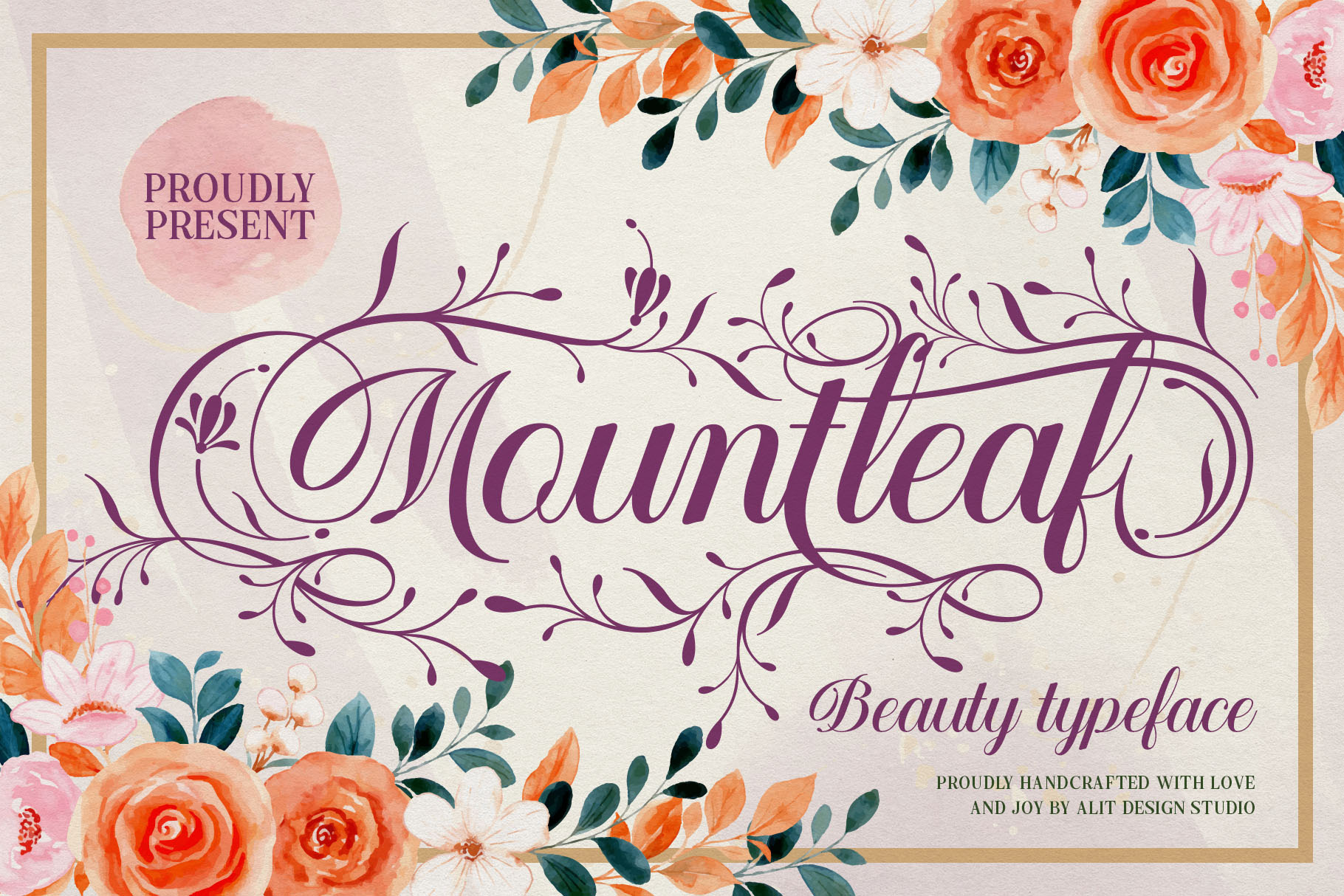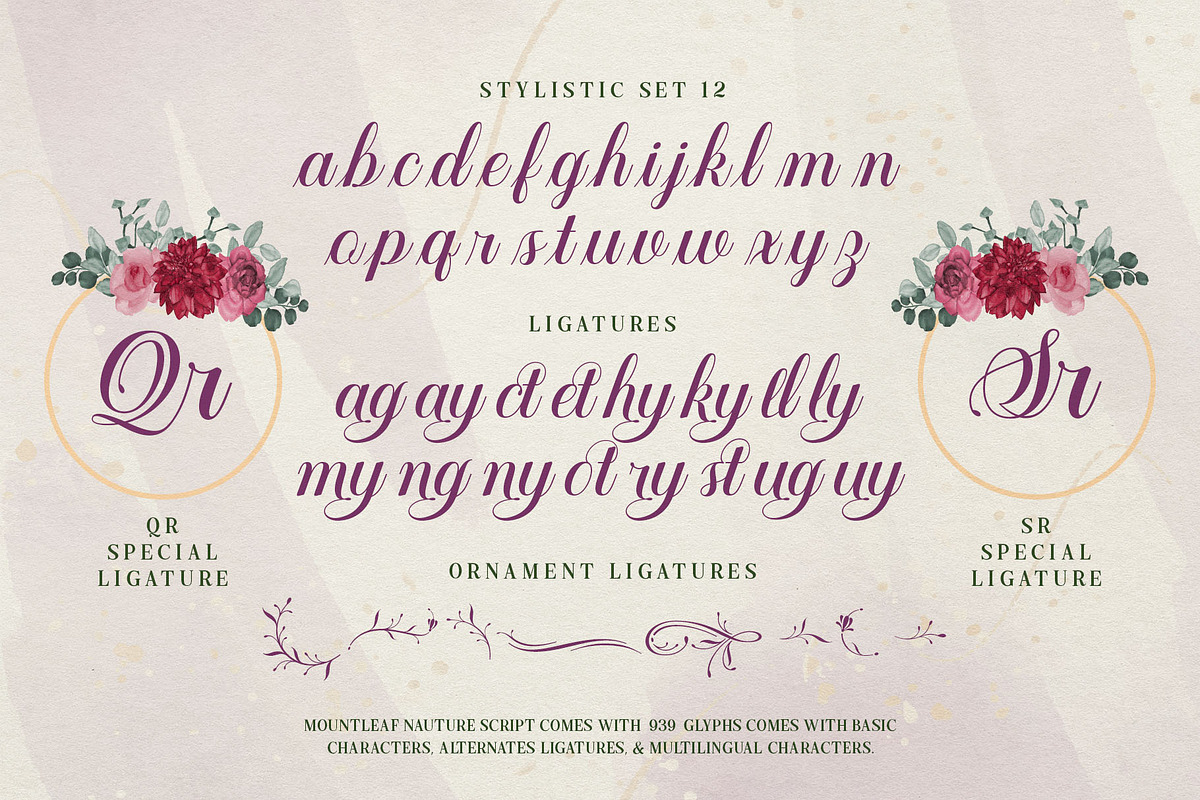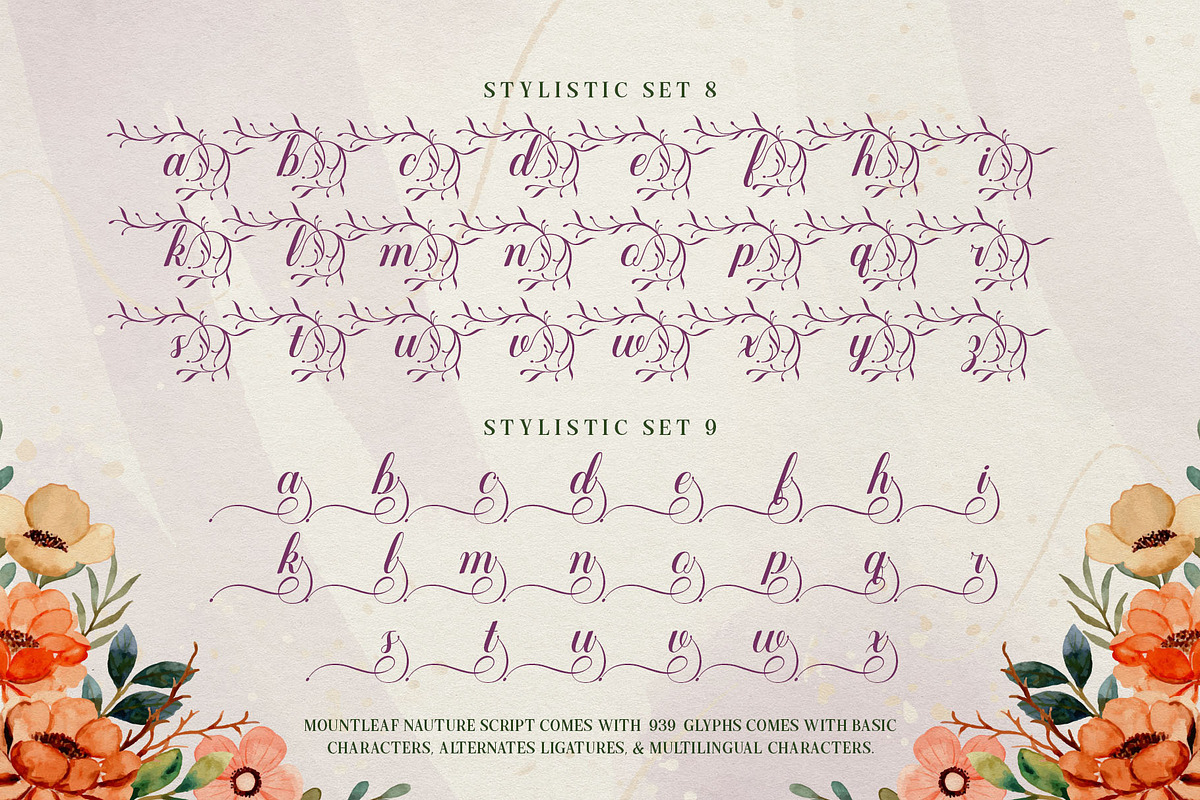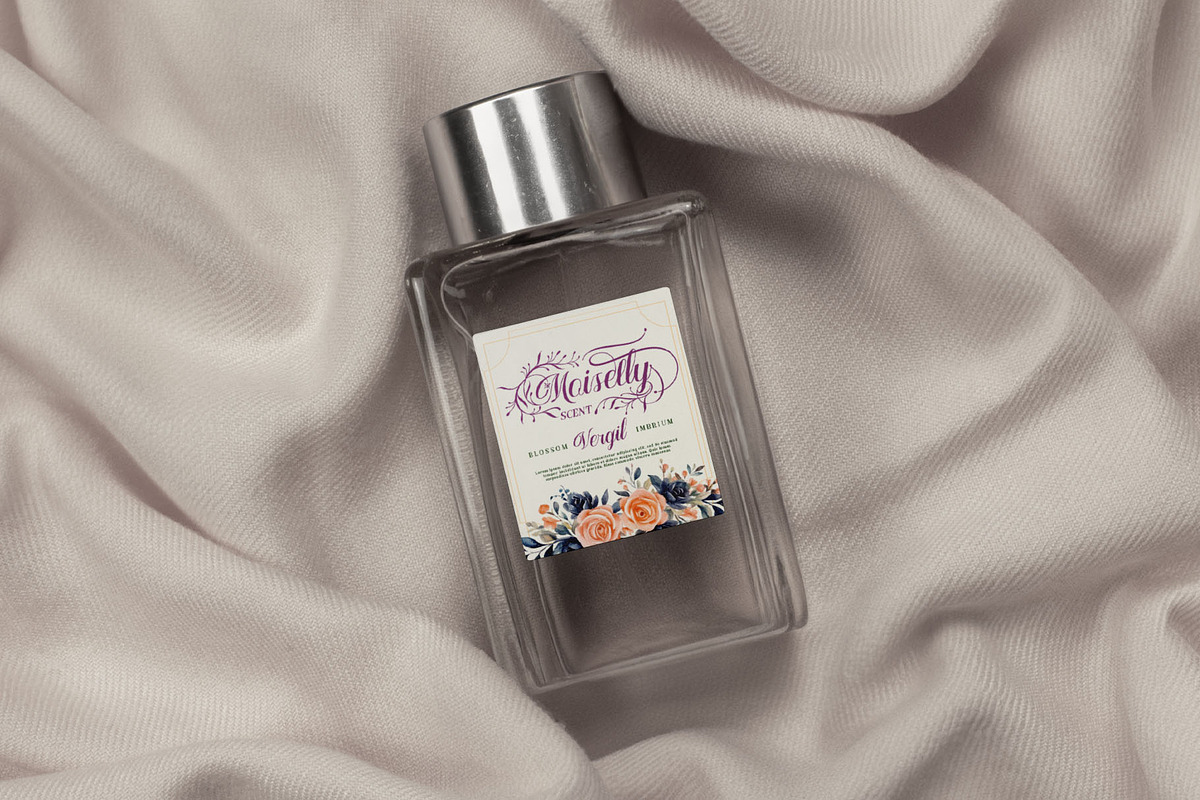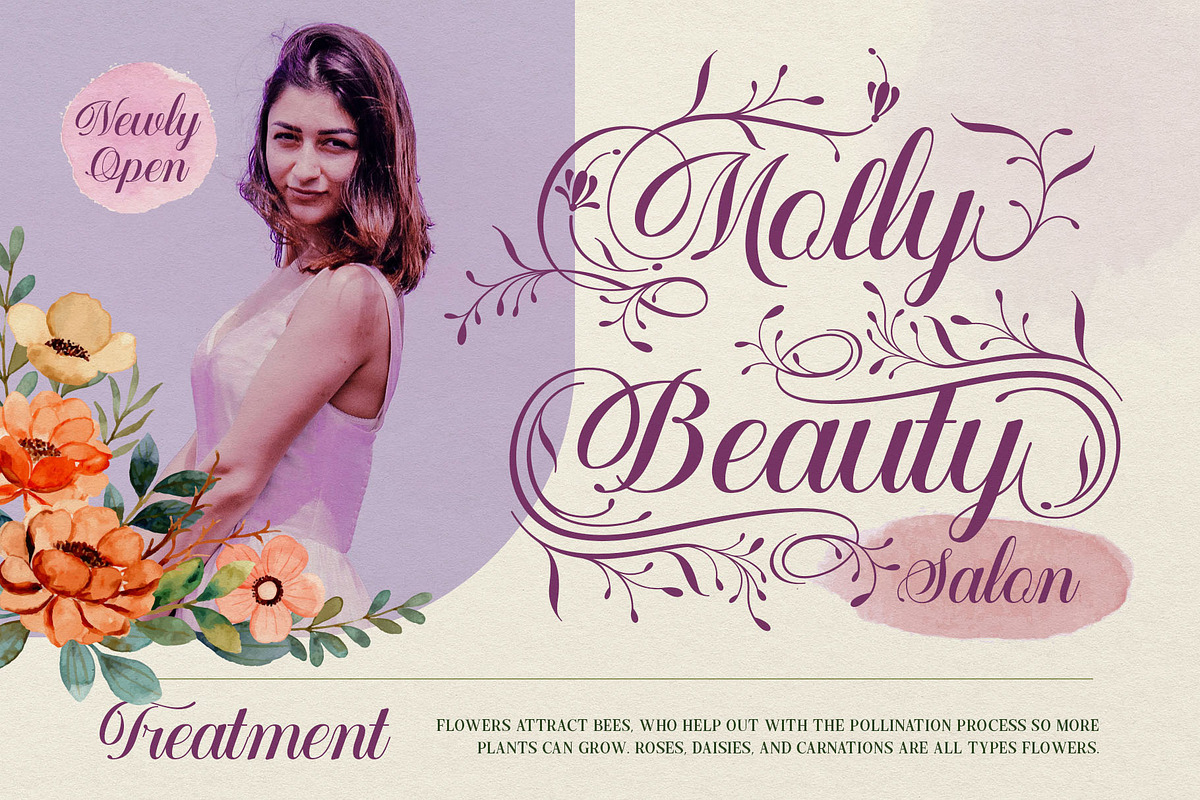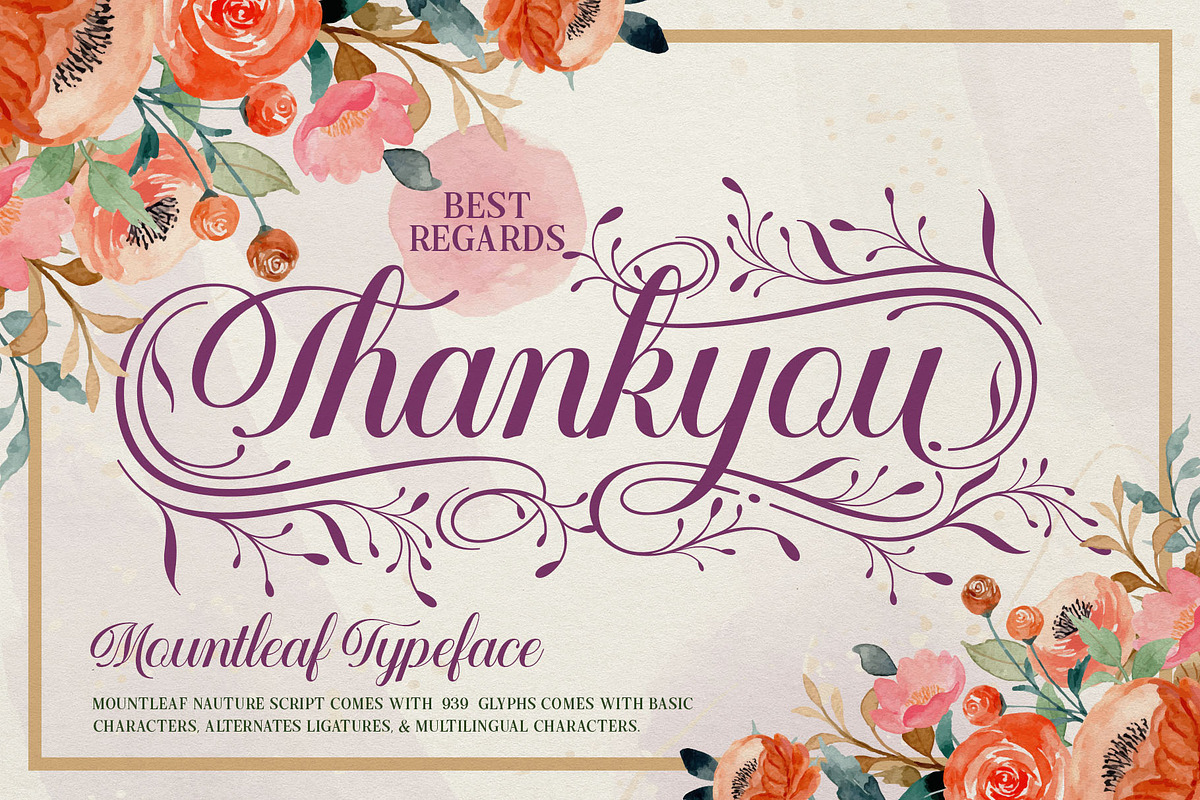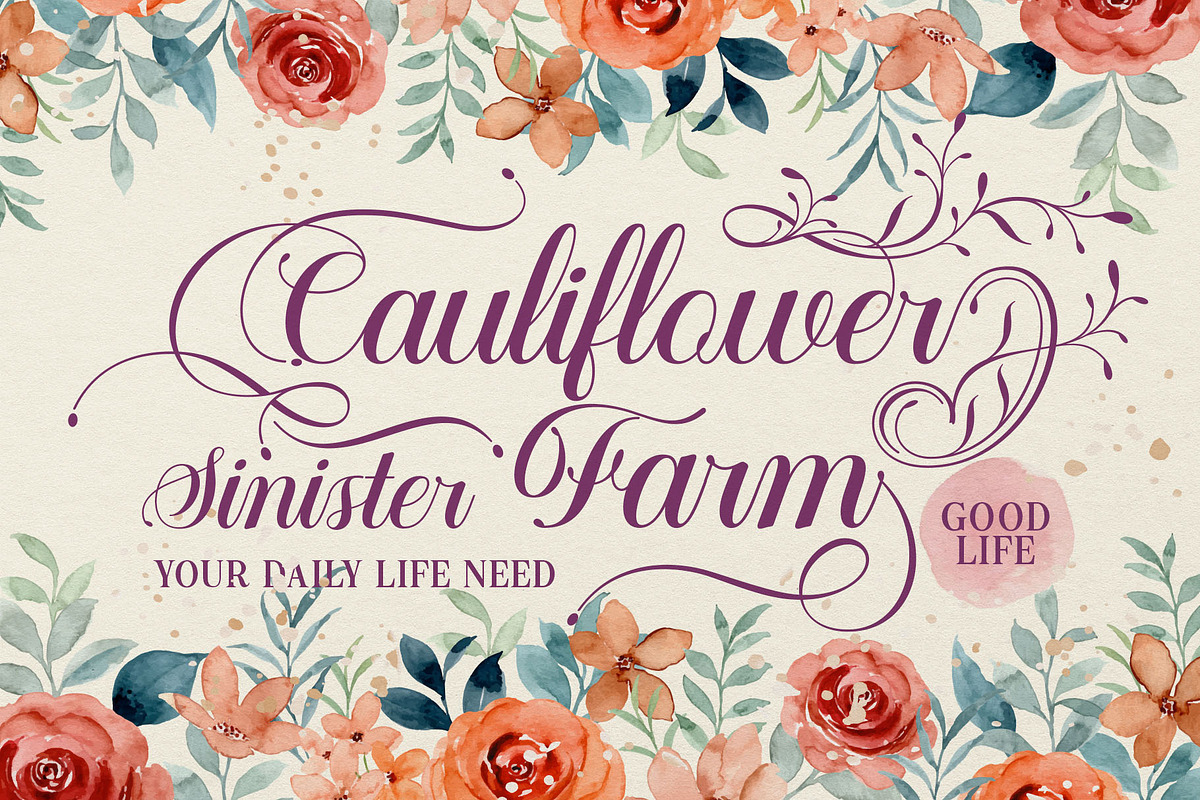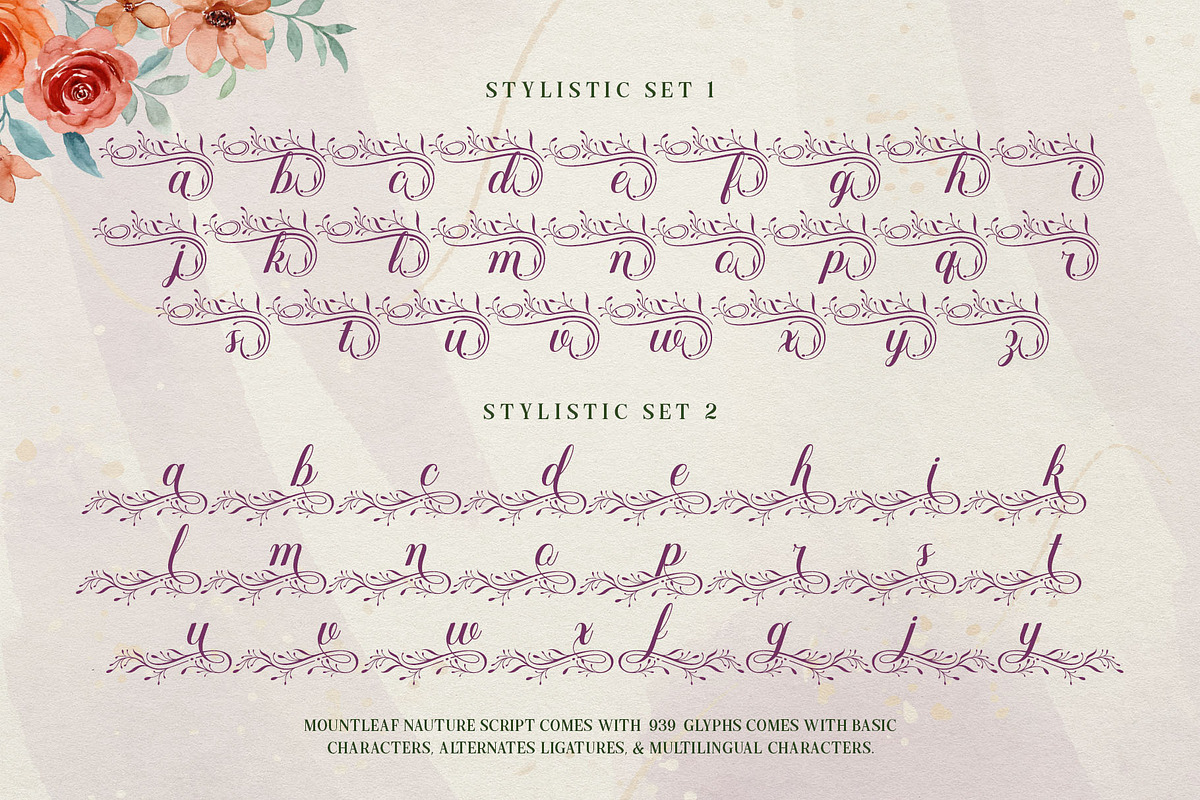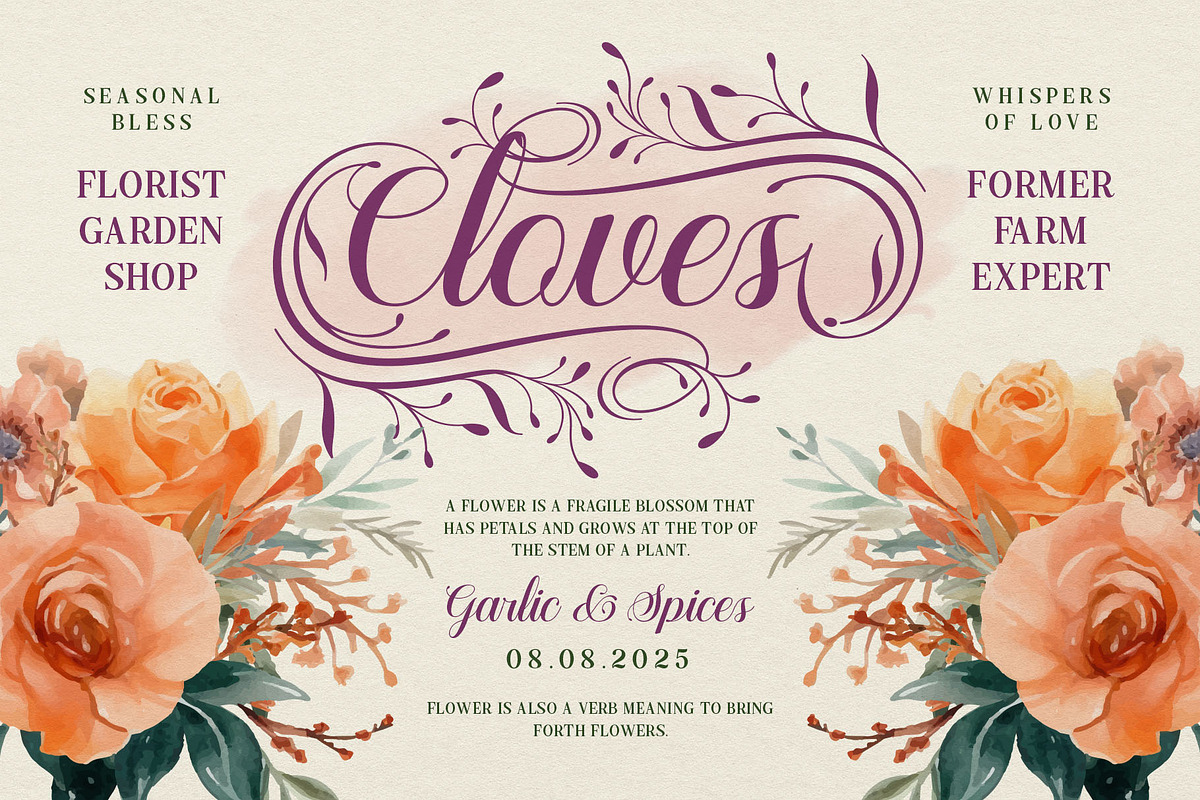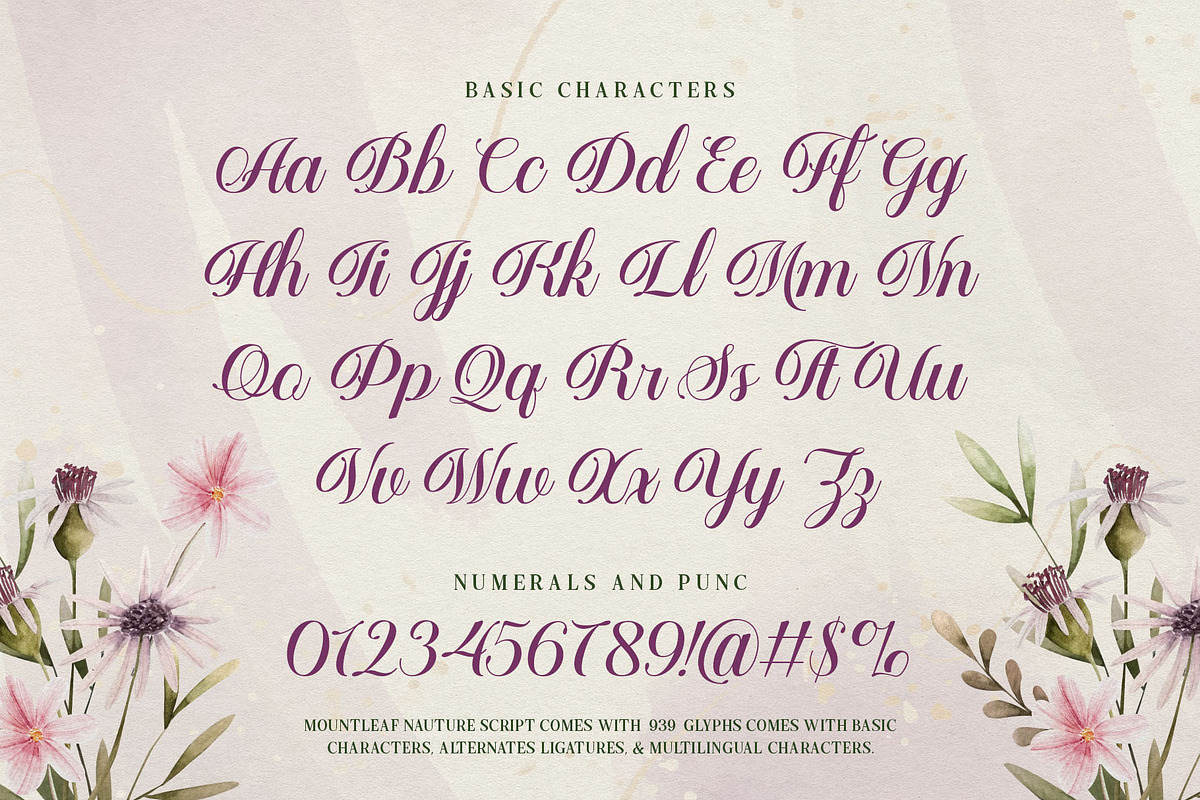
Mountleaf Typeface
Mountleaf Typeface - An Elegant Floral Script
Introducing Mountleaf, a beauty typeface where elegance blossoms.
Proudly presented, Mountleaf is a stunning and gracefully handcrafted script font that captures the delicate essence of nature. Each letter flows with organic beauty, adorned with intricate swashes that intertwine like vines, blooming into charming flowers and leaves. This typeface is designed to bring a touch of romance, sophistication, and natural wonder to your creative projects.
Inspired by the gentle whispers of a secret garden, Mountleaf is perfect for designs that require a personal, artistic, and elegant touch. Its fluid strokes and elaborate details make every word a masterpiece.
- Extensive Glyphs (939 total): Unlock a world of creative possibilities with a vast library of characters.
- Abundant Stylistic Alternates & Swashes: This is where Mountleaf truly shines. With multiple stylistic sets for both uppercase and lowercase letters, you can create truly unique and customized typography. Mix and match to find the perfect flourish for your design.
- Ligatures: A collection of natural-looking ligatures that ensure your text flows together seamlessly.
- Numerals & Punctuation: A full set of numbers and punctuation marks, designed to complement the script's elegant style.
- Multilingual Support: Mountleaf is ready to grace designs for an international audience.
Mountleaf is incredibly versatile and ideal for branding, logotypes, wedding invitations, stationery, social media posts, packaging, greeting cards, book covers, quotes, and any project that needs a touch of handcrafted elegance and floral beauty.
Let the Mountleaf Typeface breathe life into your work, turning ordinary text into a botanical work of art.